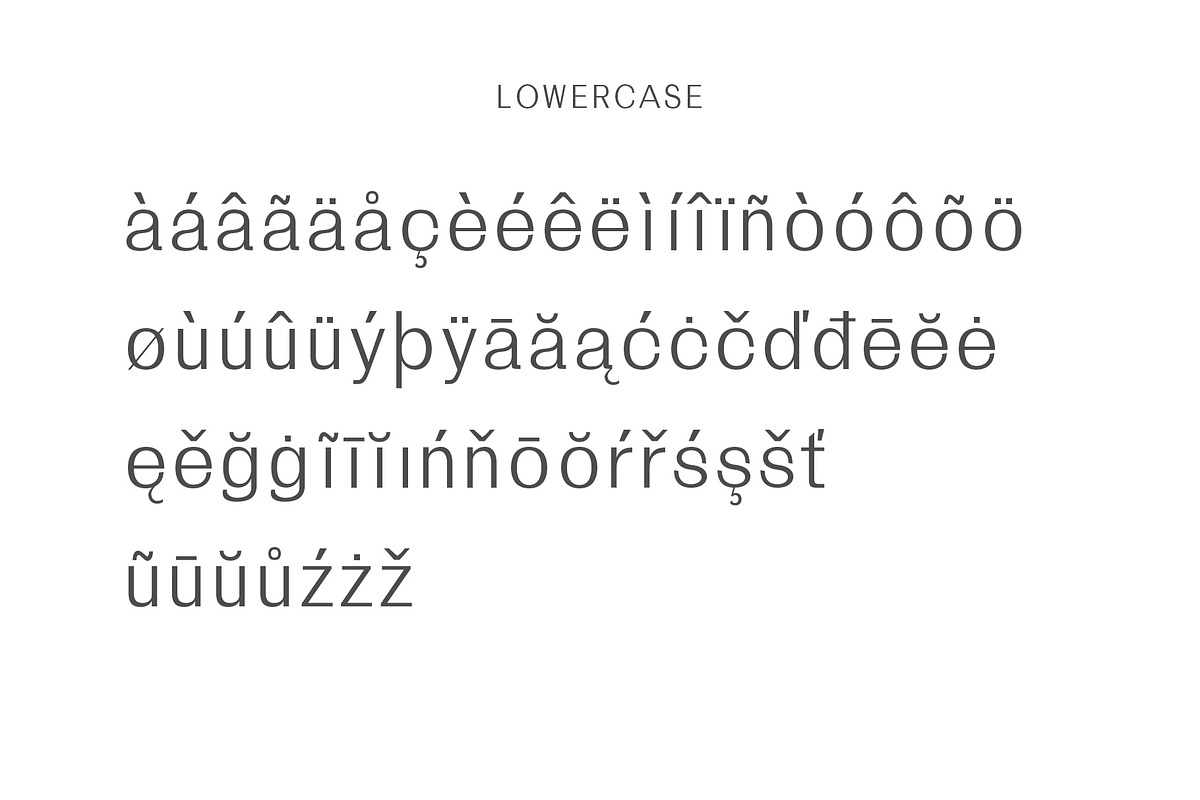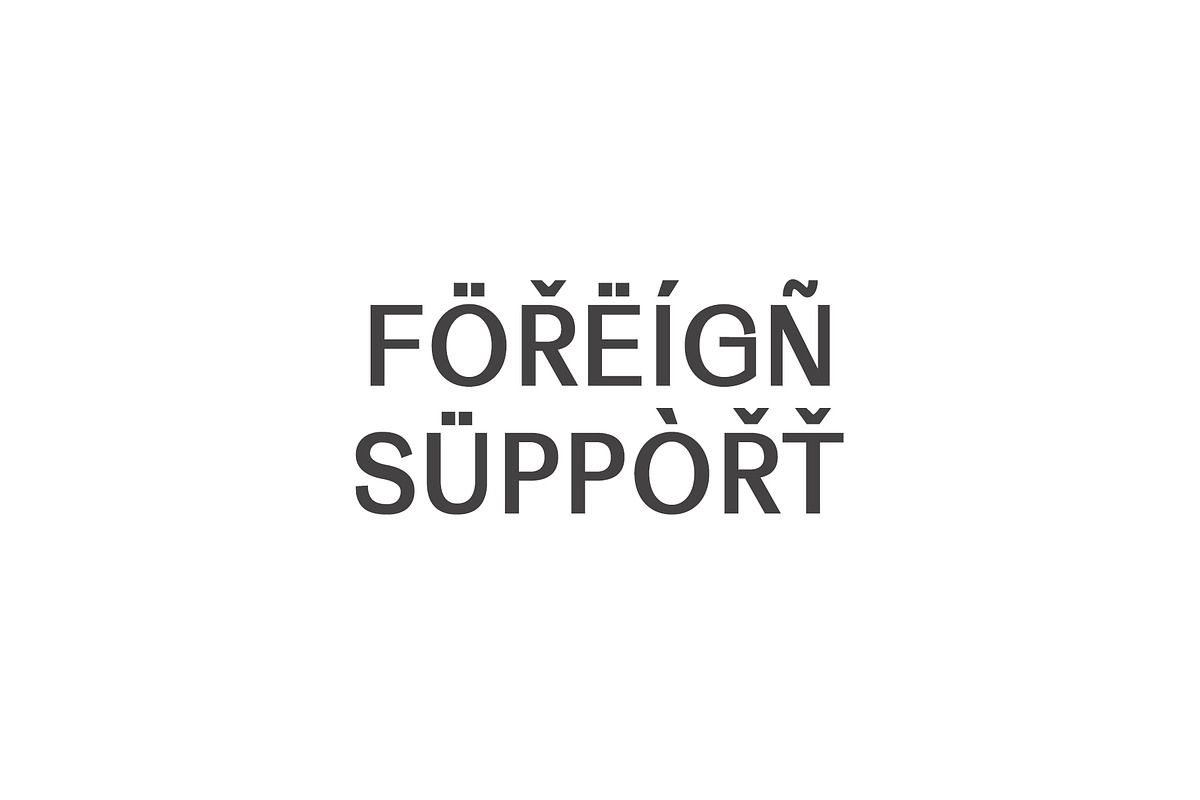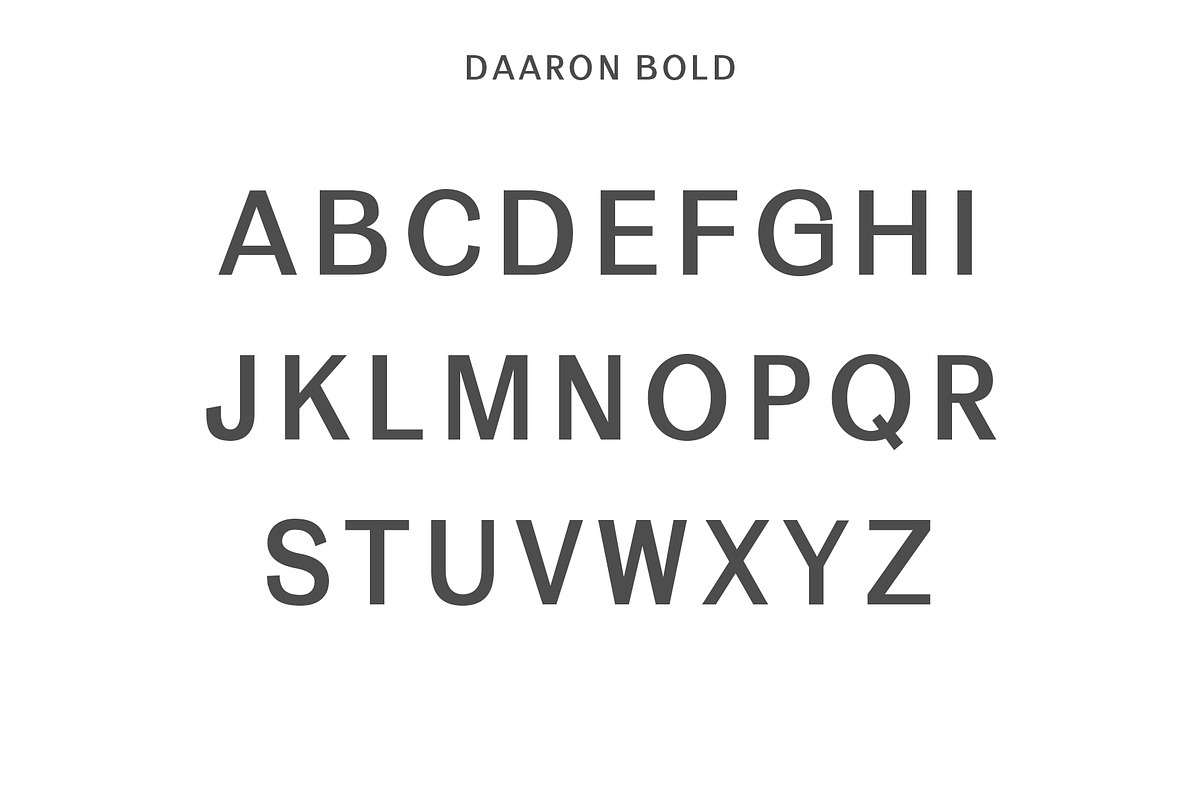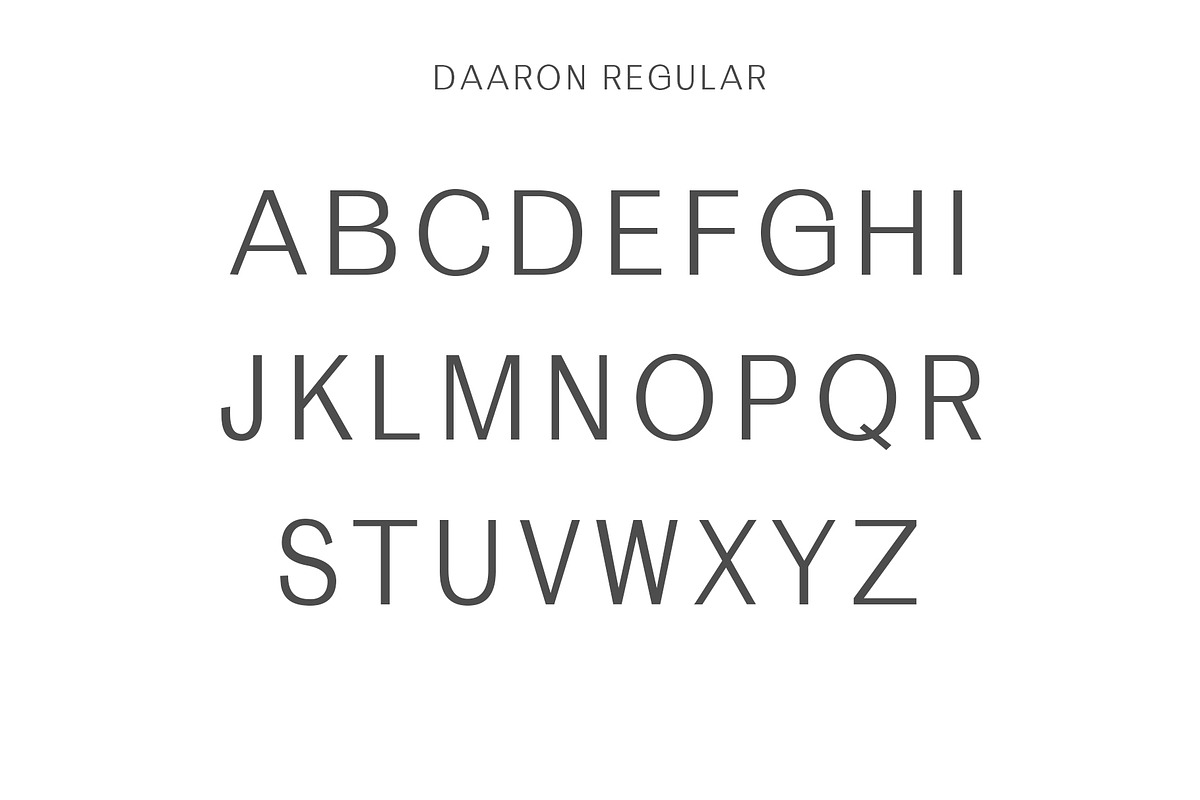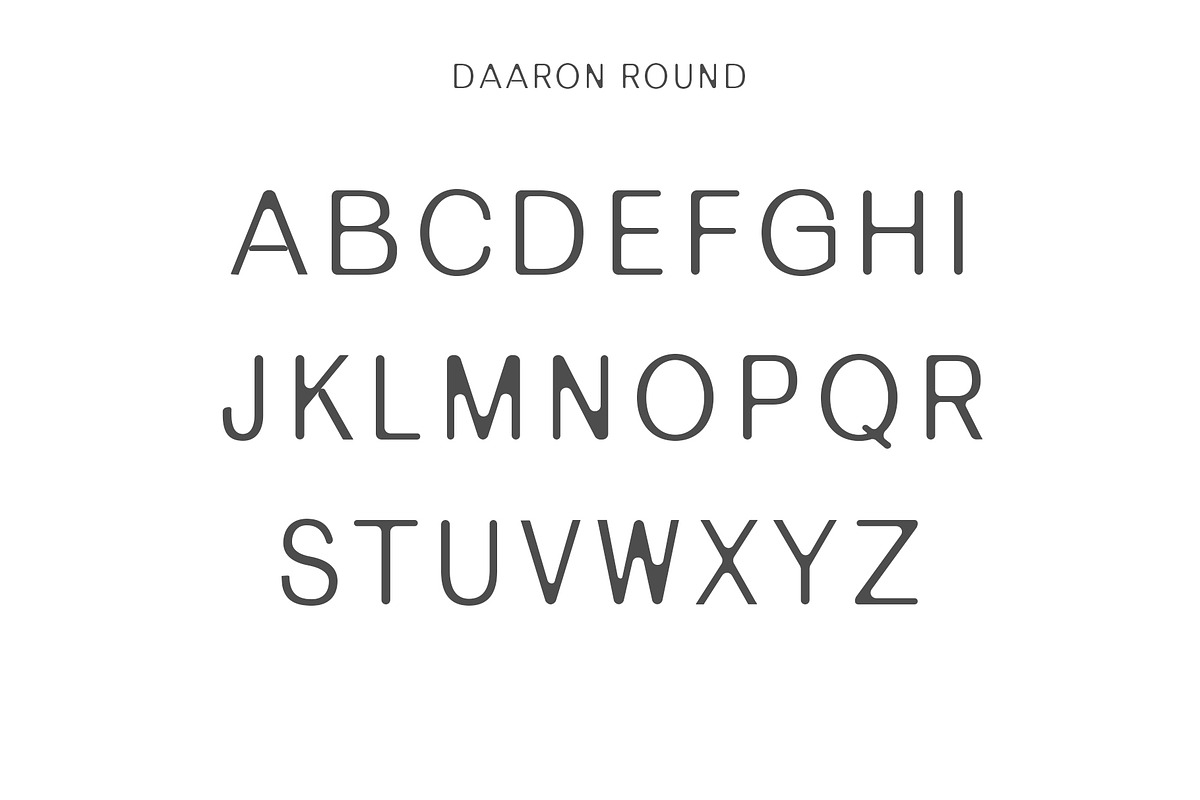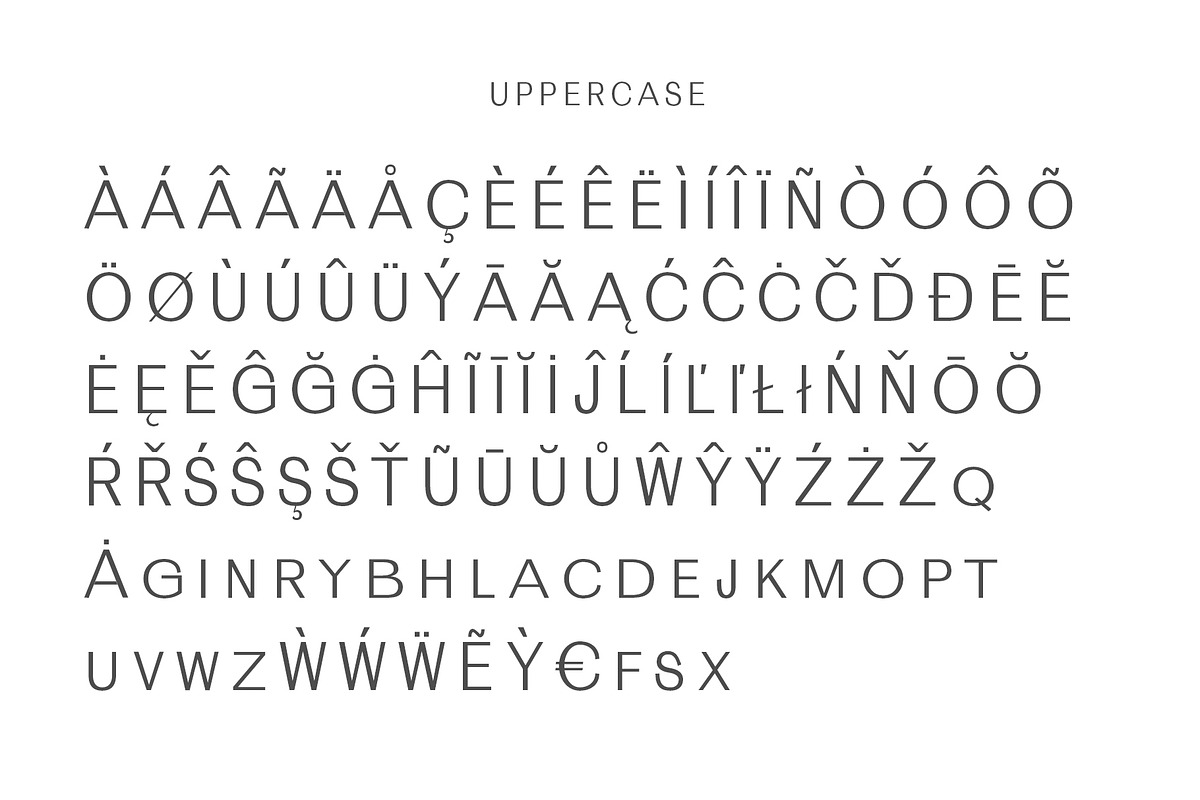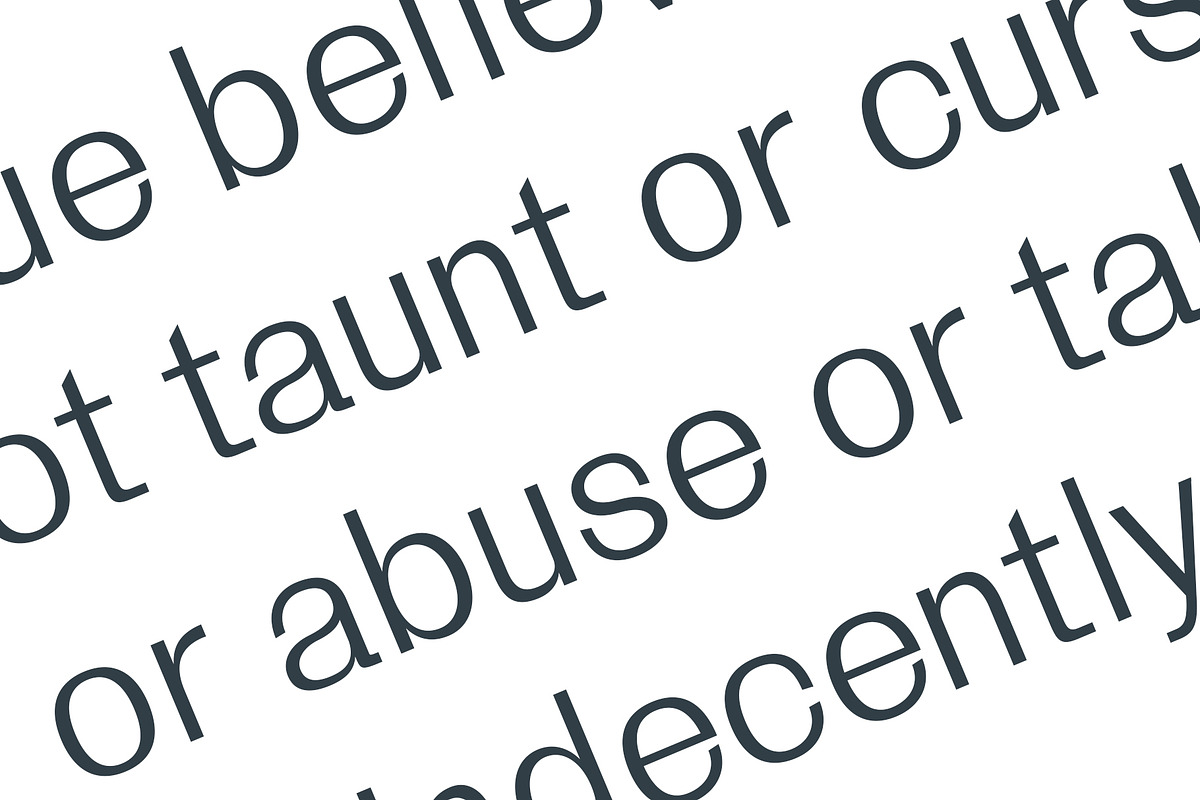
Daaron Sans Serif Font Family
Daaron is a modern and minimalist rounded sans serif typeface. It comes with 3 weights: Regular, Round and Bold versions, which contains complete basic glyphs with multilingual support. Linnett will be perfect for packaging, presentations, logo, headlines, lettering, posters, branding, quotes, titles, magazines headings, web layouts, advertising, invitations, packaging design, books, and nearly any creative design.
Font Weight: Regular, Round and Bold
Daaron Font Features:
- It comes with 3 weights: Regular, Round and Bold versions, which contains complete basic glyphs with multilingual support.
- Font Weight: Regular, Round and Bold
- Daaron regular
- Daaron Bold
- Daaron Round